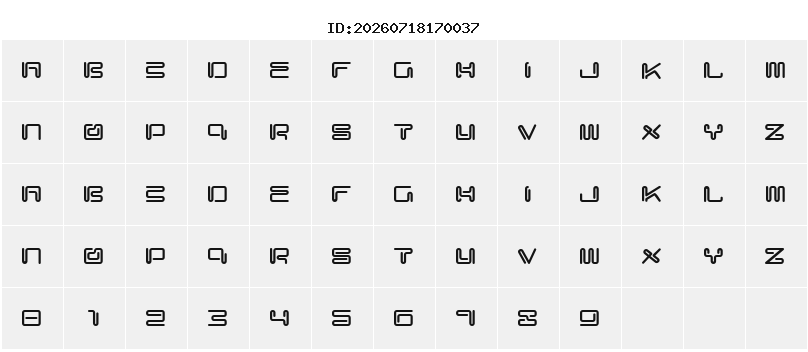
CyberMonkey Preview
• Font Name: CyberMonkey
• Full Font Name: CyberMonkey
• PostScript Name: CyberMonkey
About CyberMonkey.ttf
CyberMonkey.ttf is a modern, elegant sans-serif font designed for ultimate readability and visual harmony. Perfect for branding, headlines, web design, and print materials.